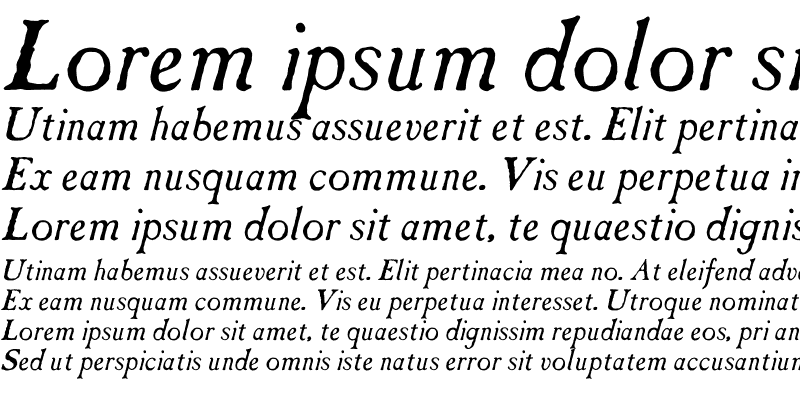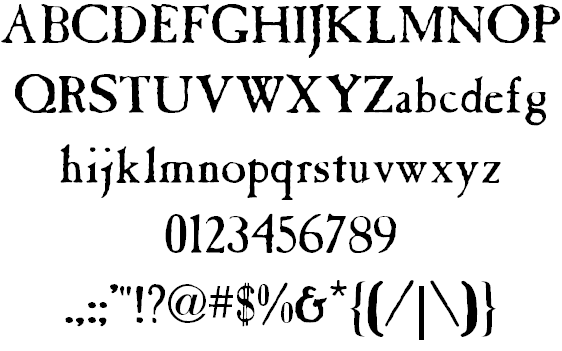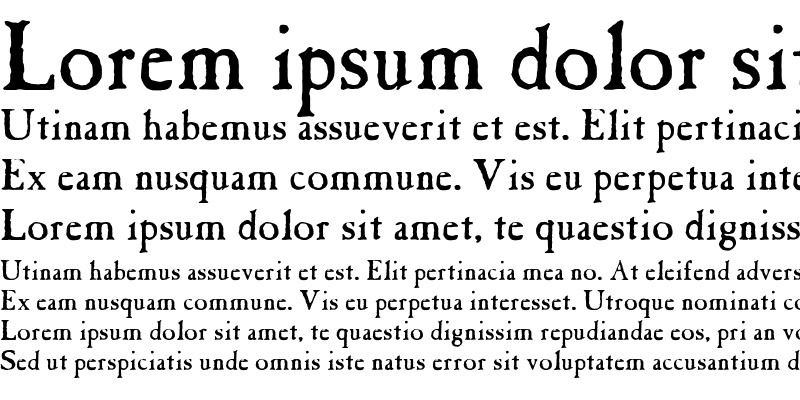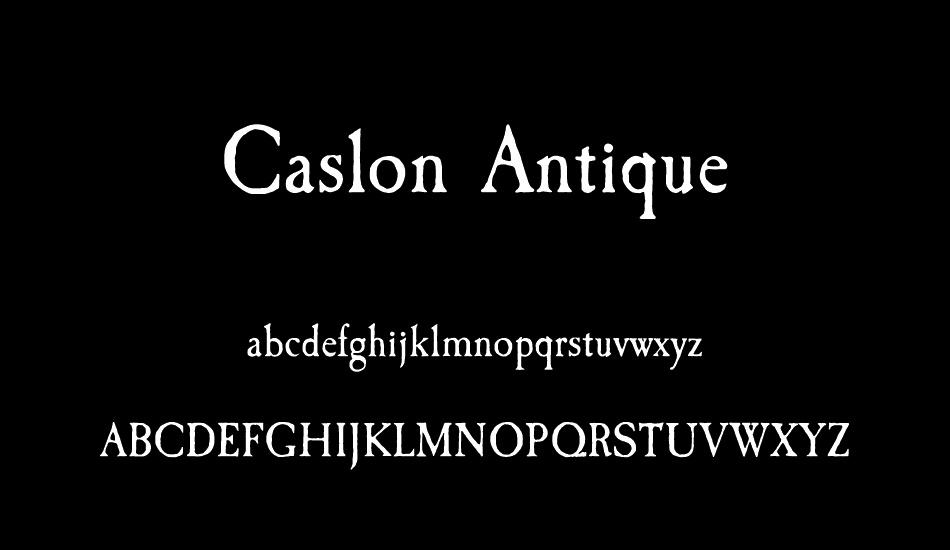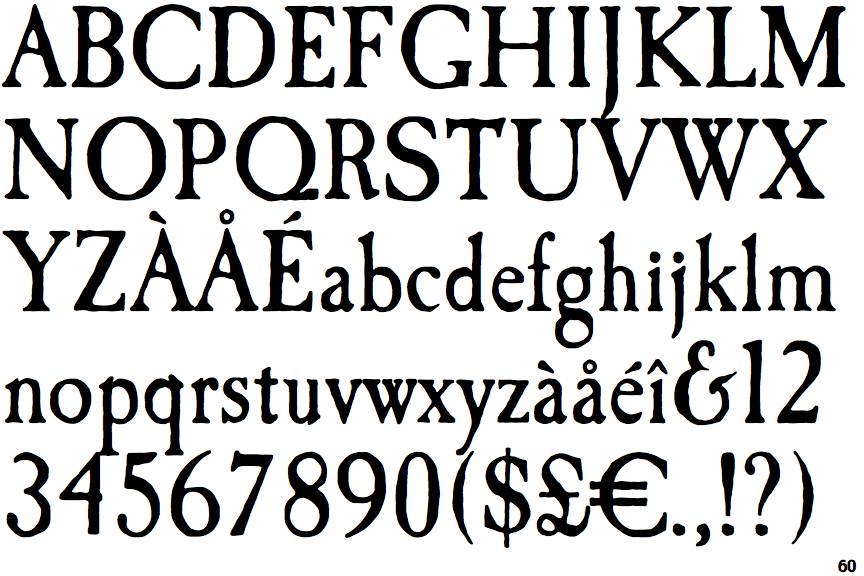
It was originally called fifteenth century, but was renamed caslon antique by nadall's foundry, barnhart bros.
Caslon antique similar fonts free. It was originally called “fifteenth century”, but was renamed “caslon antique” by nadall’s foundry, barnhart bros. If you don't vote, you can't bitch! Similar free fonts for hardtimes roman font.
Introducing caslon antique serif font is a decorative american typeface that was designed in 1894 by berne nadall. Early printers would reuse metal type over […] Before installing the caslon antique italic font in os x, you must first completely close all applications.
Download free font caslon antique italic. 1906 french news glc foundry. Caslon antique is a decorative american typeface that was designed in 1894 by berne nadall.
Novel sans hair pro cnd 24 commercial fonts. Going in no more depth, you can download caslon antique regular font from right here by a simple single click and apply it for your projects including personal and commercial. The design of the typeface is meant to evoke the colonial era.